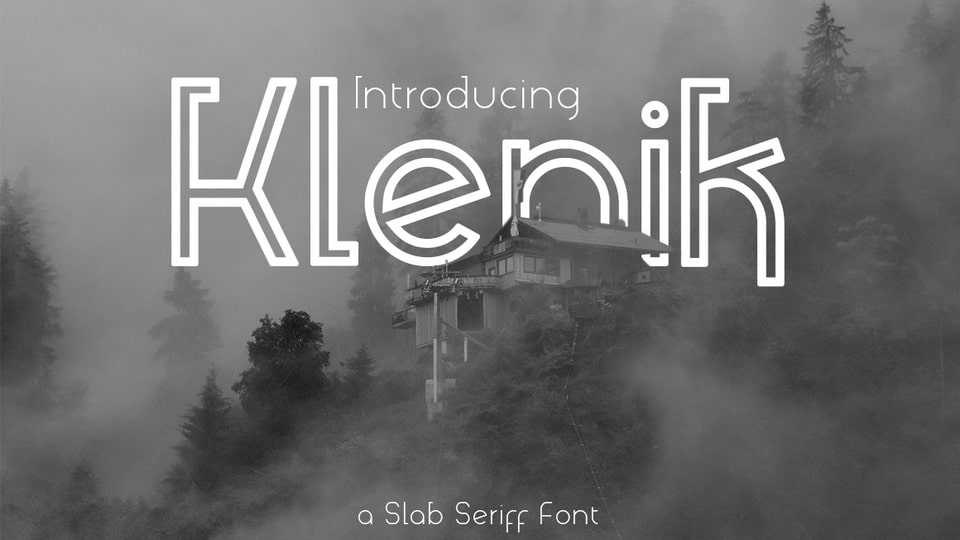
Download Klenik font, a modern and bold slab serif typeface with a distinctly bold authentic touch. This stand out font will elevate any design idea.